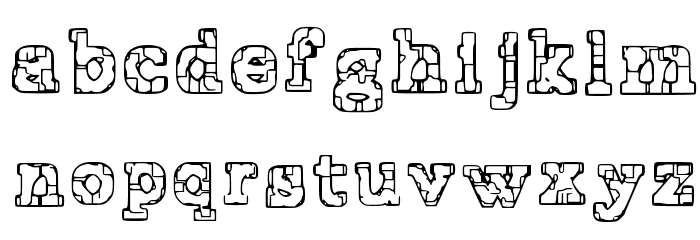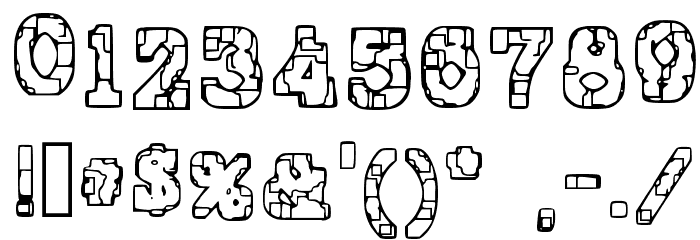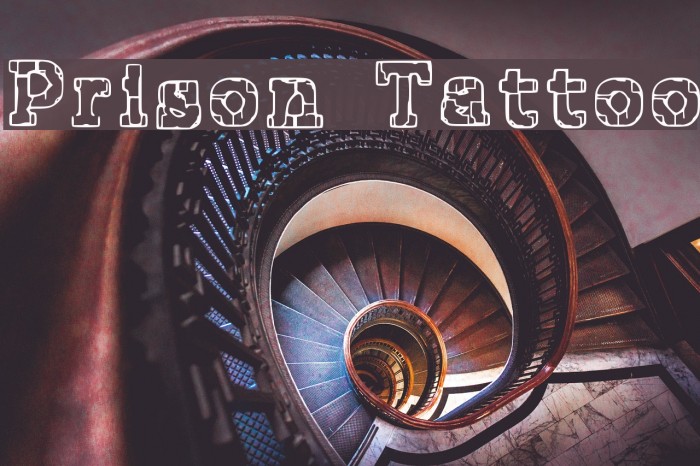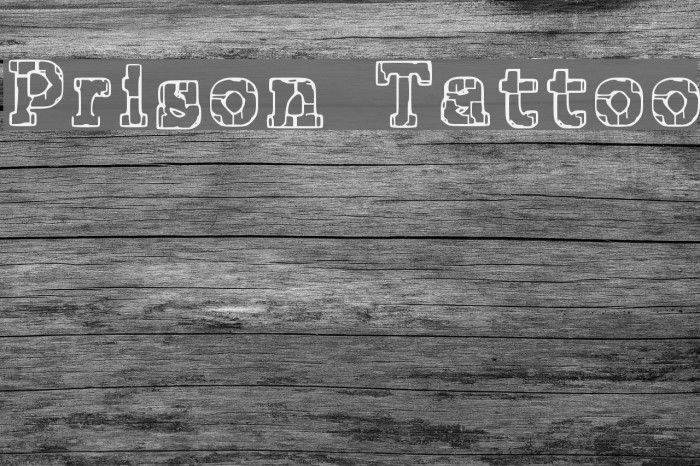
Prison Tattoo Font
This font features a bold, decorative style with a unique, fragmented appearance. Each character is composed of irregular, puzzle-like pieces that create a rugged and edgy look. The uppercase and lowercase letters maintain a consistent design, with thick strokes and a playful, chaotic arrangement of elements within each letterform. The numbers and special characters follow the same design principles, ensuring a cohesive visual theme throughout the font. The overall aesthetic is reminiscent of graffiti or tattoo art, making it stand out with its unconventional and artistic flair.
A bold, fragmented decorative font with a rugged, graffiti-like style.
- Proposed Projects: Ideal for projects requiring a bold, artistic touch, such as posters, album covers, or branding for edgy, creative industries.